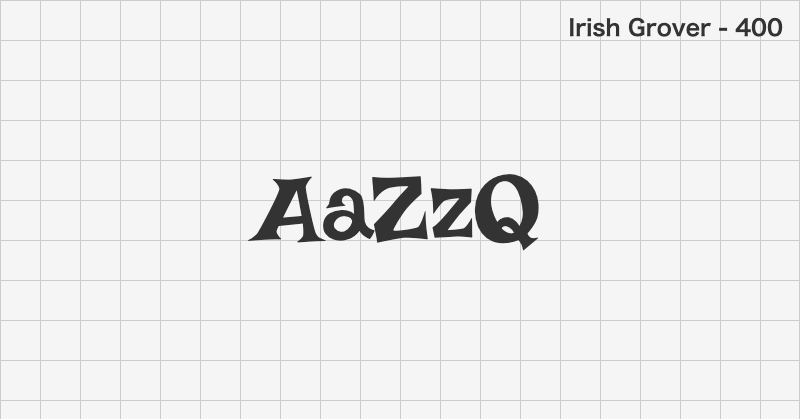
Irish Grover – Display Fonts Free for Commercial Use
Irish Grover is a vibrant display font that exudes a fun and flamboyant character, making it suitable for various creative applications.
Irish Grover was developed by Sideshow, aiming to deliver a playful typeface that stands out in design.